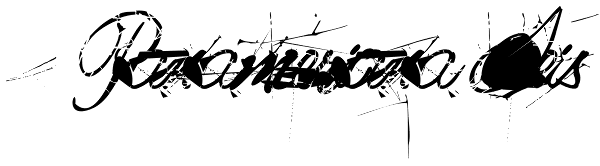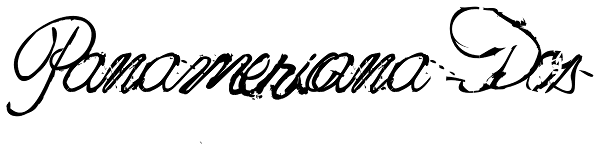
Panamericana
Panamericana is a family of calligraphic origin consisting of 10 styles: Blanca, Gris, Negra, Uno, Dos, Tres, Cuatro, Cinco, Seis and Dingbats (Dingbats includes 26 illustrations characters). The blending of each and every one of these styles allows...